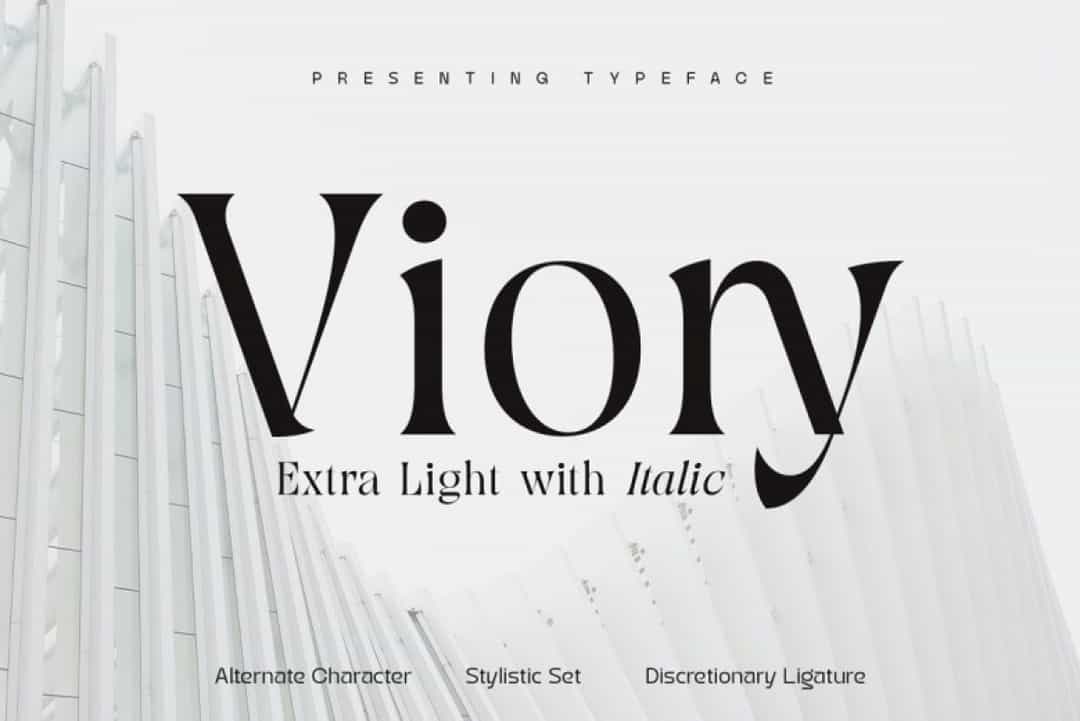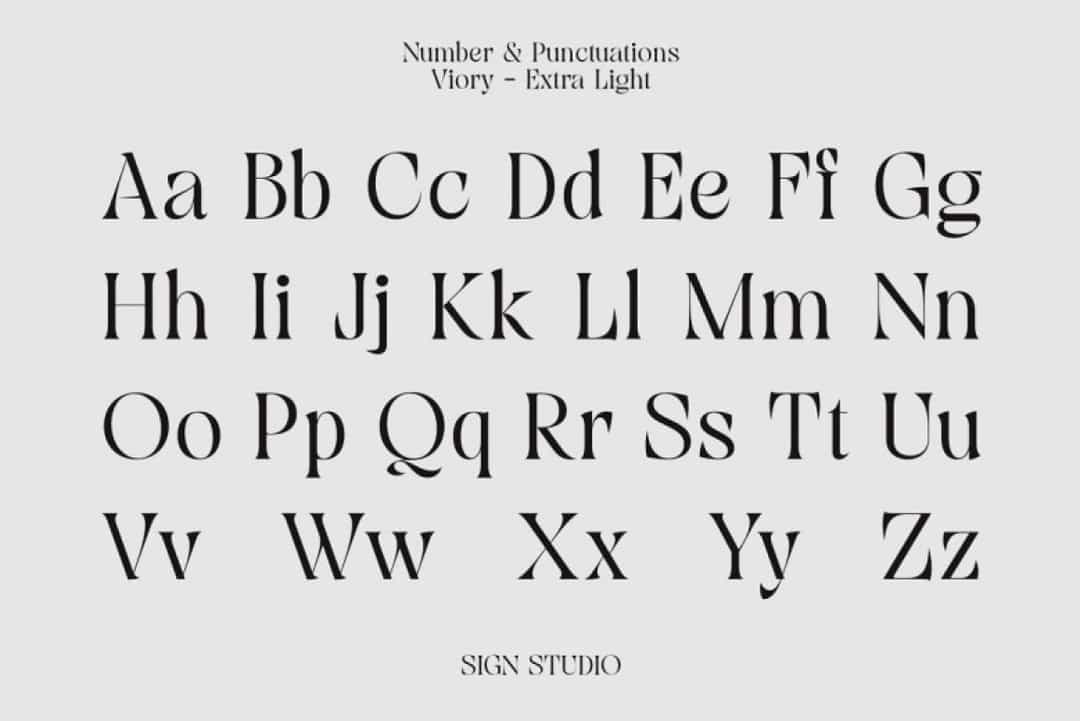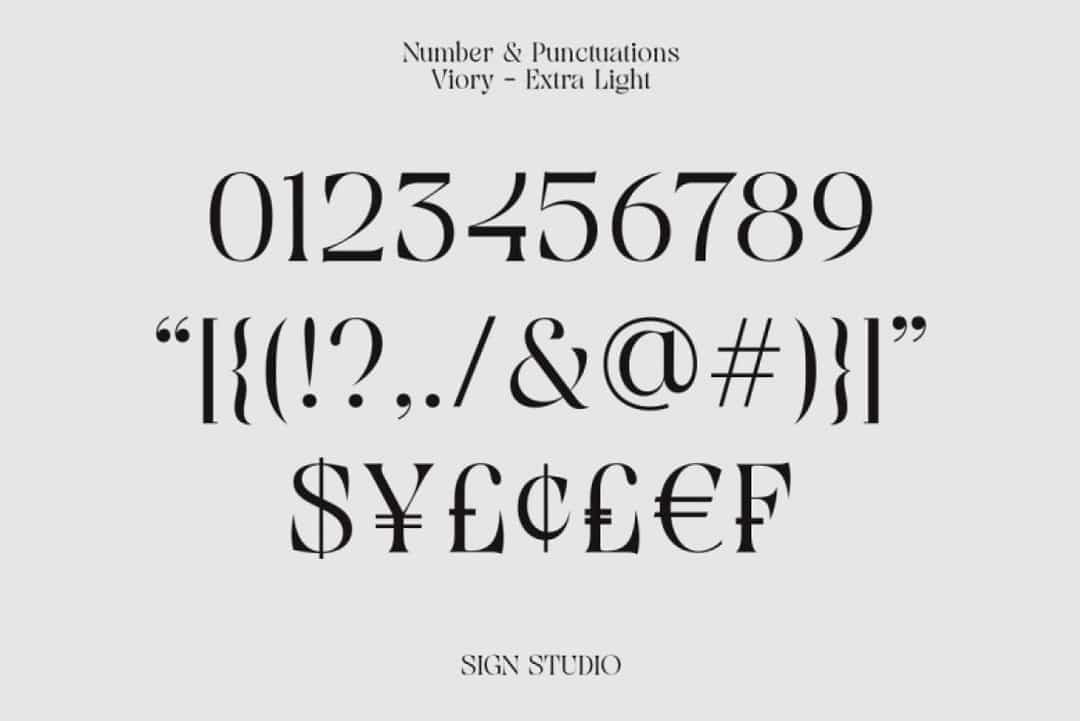
Viory is an elegant yet classic serif font family, designed to complement one another to elevate your style. Boasting Stylistic Set and Disretionary Ligature as well as other characteristics. Each curve in Viory has been meticulously pressure-balanced so as to achieve the smooth design for which this font family is so well known. Elegant and timeless design are showcased within this collection.